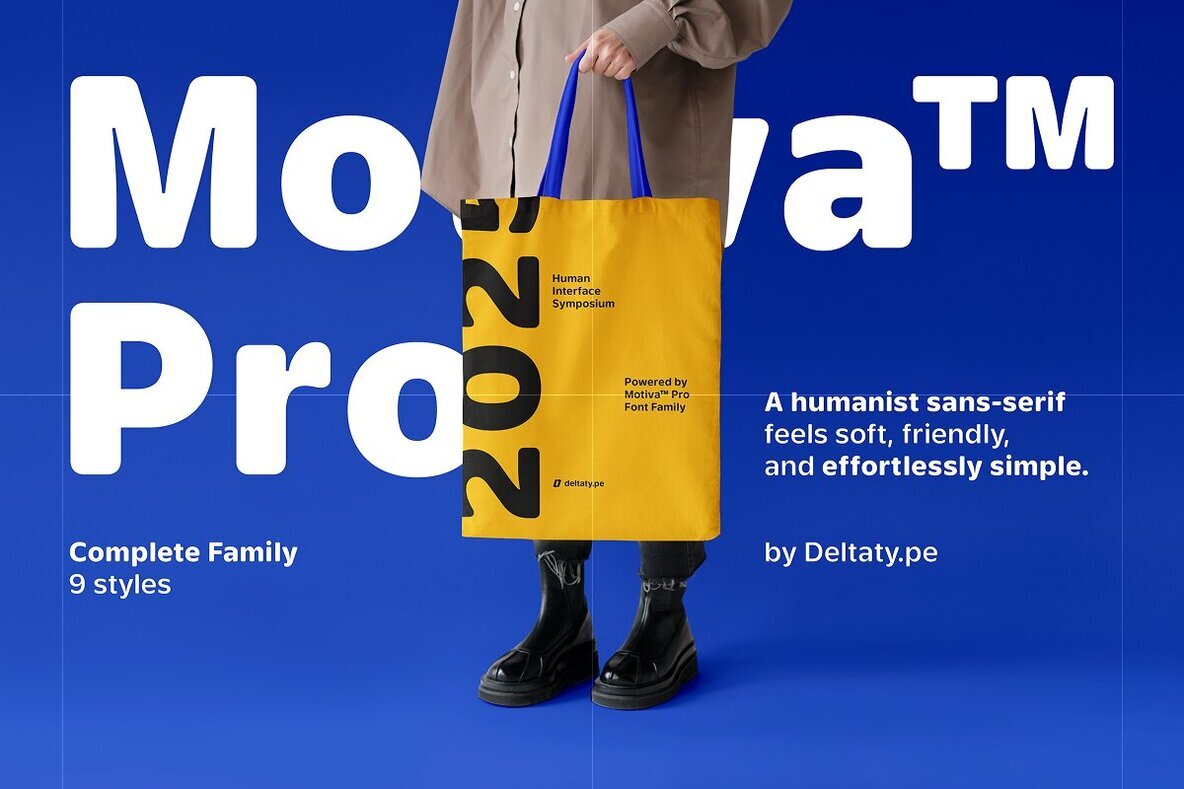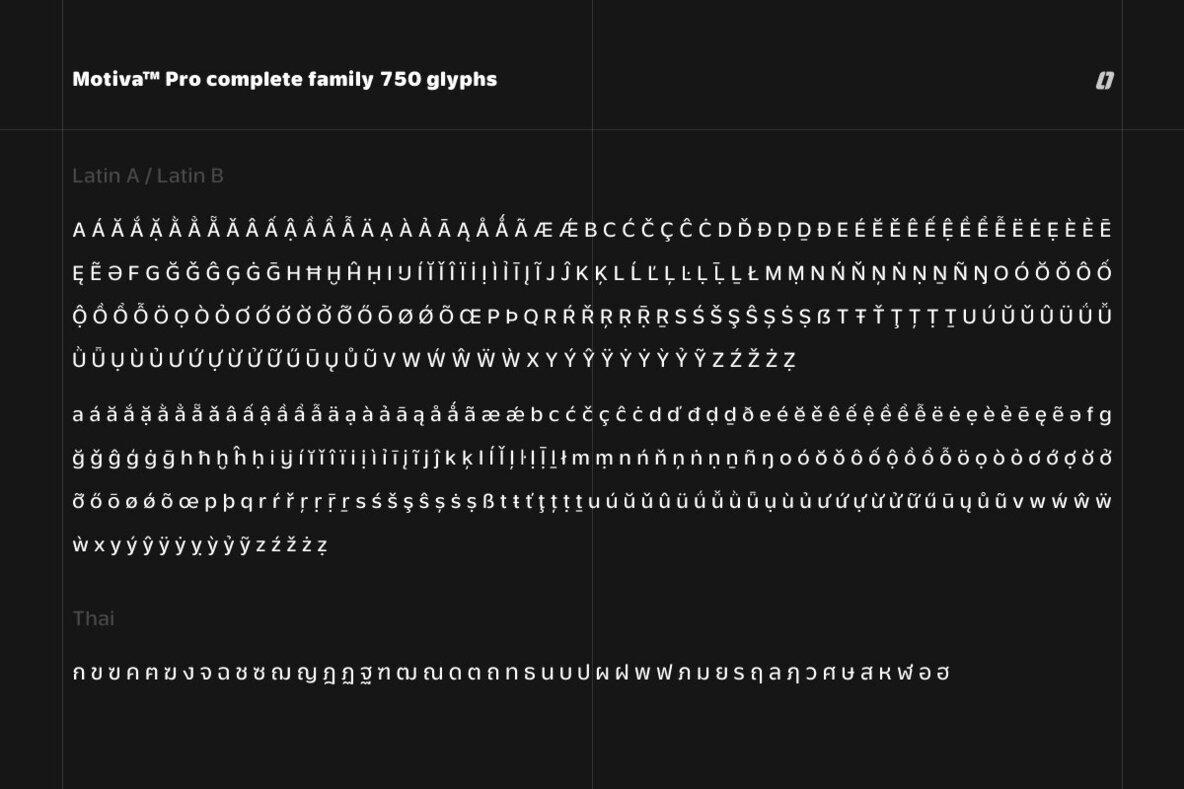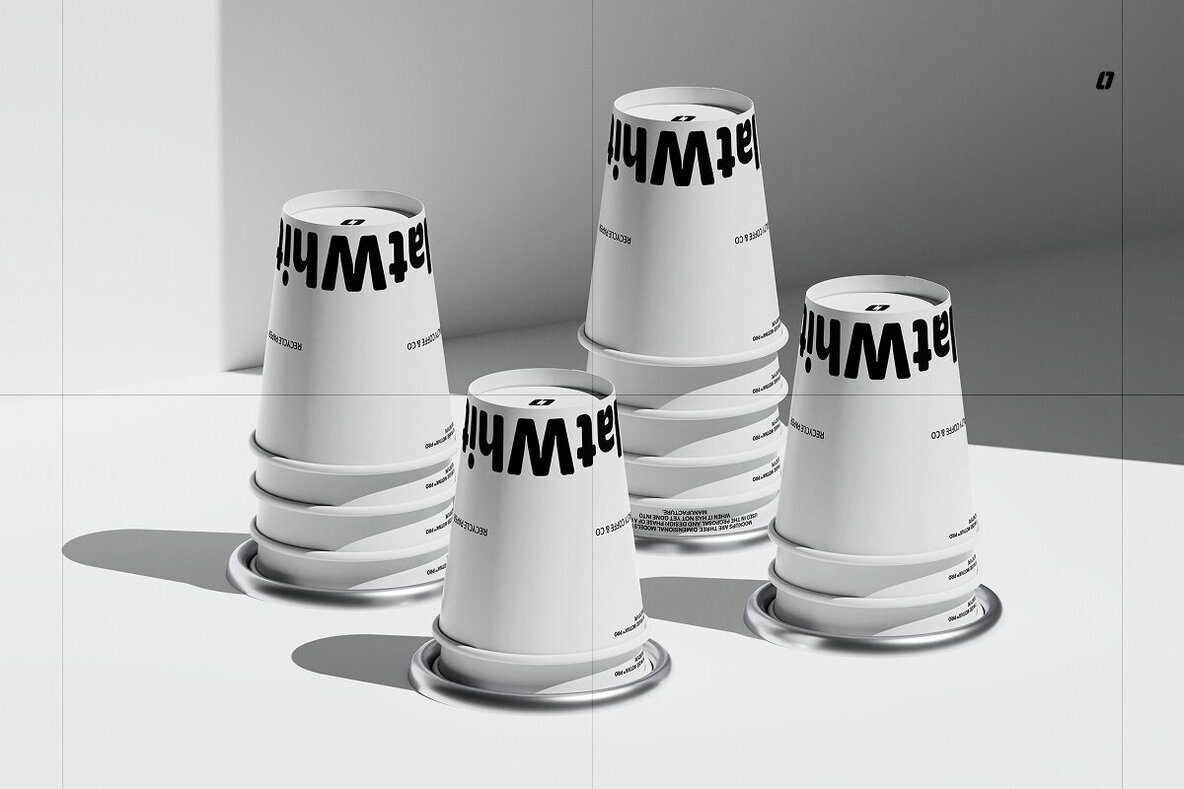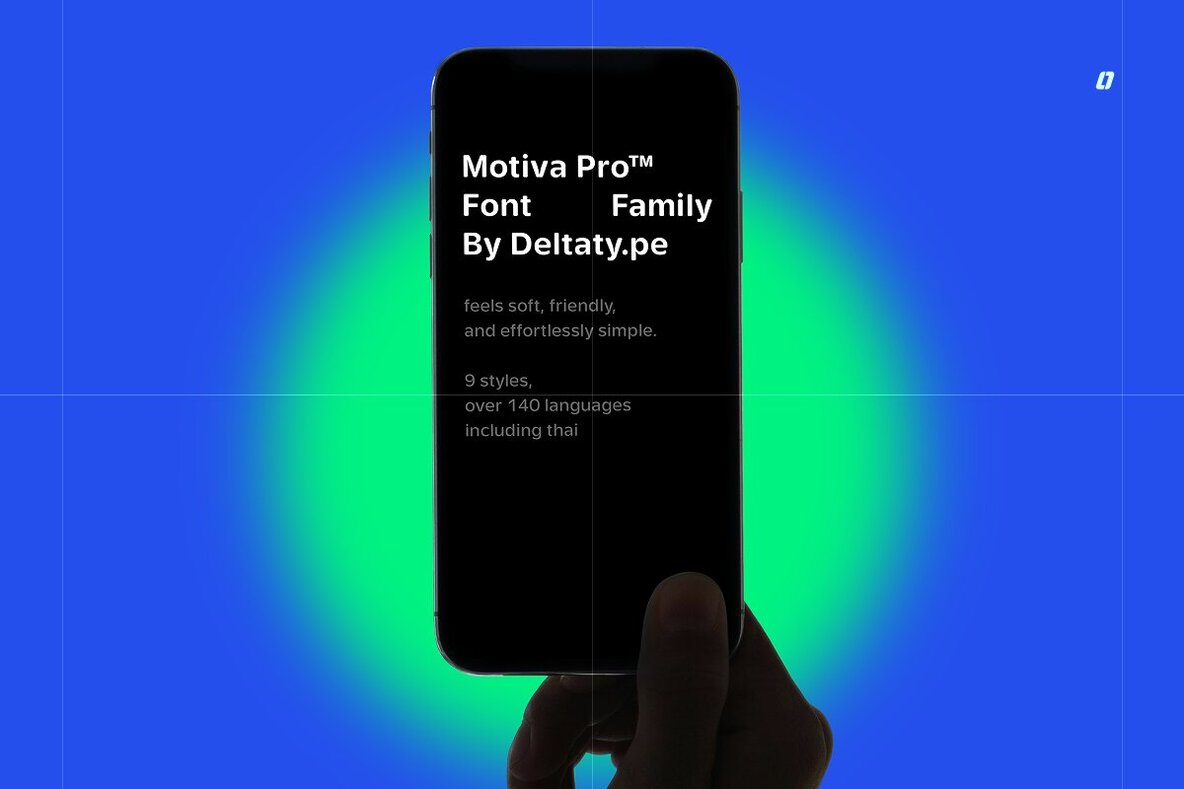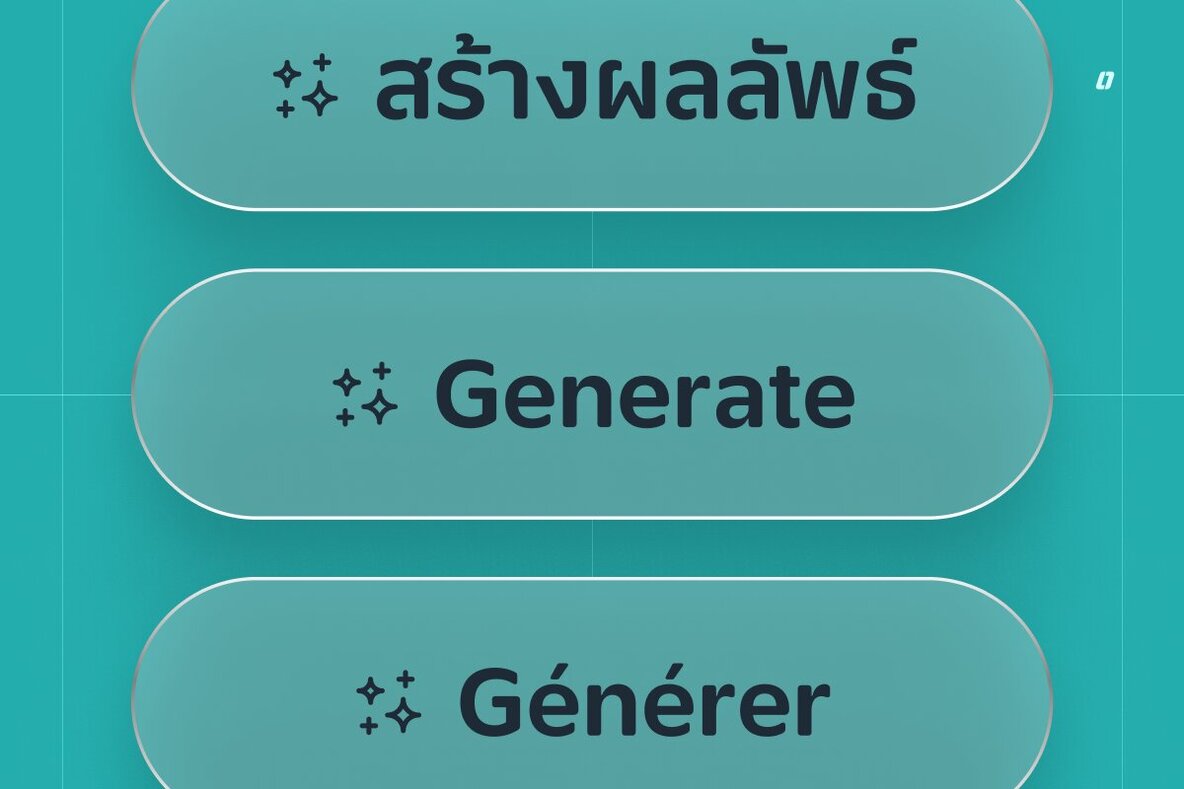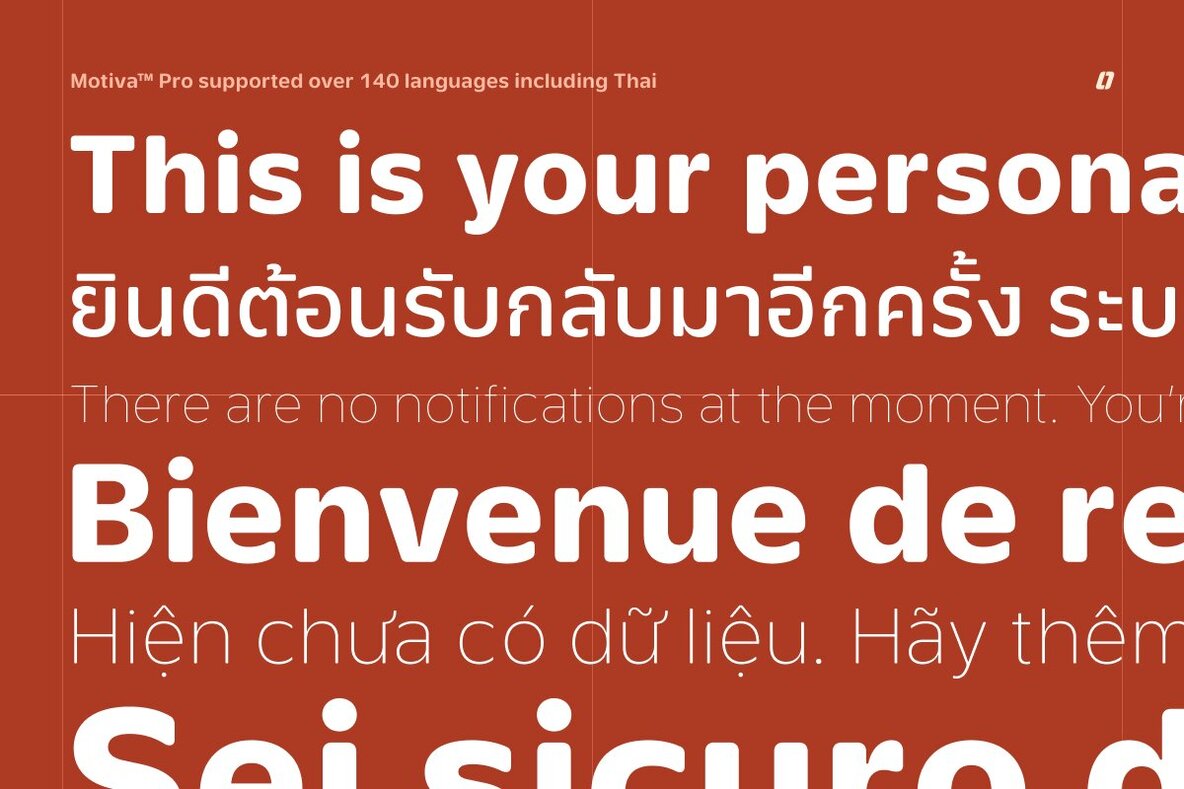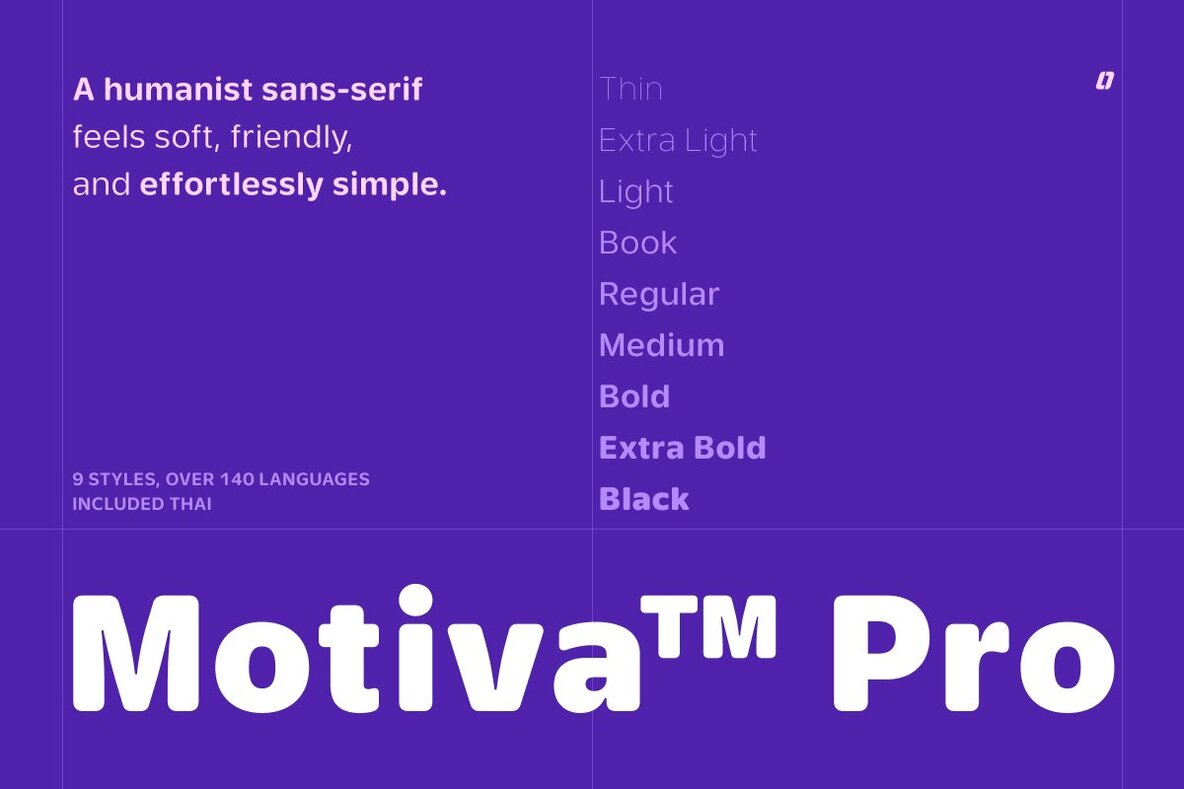
Motiva Pro Font
The Motiva Pro font is a testament to harmonious design, with its soft, humanist sans-serif qualities that effortlessly introduce a sense of warmth and simplicity. Meet Motiva Pro, a font that exudes a subtle confidence while infusing digital environments with warmth and clarity. Featuring gently rounded edges and well-balanced proportions, it presents an approachable and intelligently crafted aesthetic suitable for a broad spectrum of design applications.Motiva Pro: A Humanist Sans-Serif for Seamless Design
The Motiva Pro font is designed for those who seek both functional and emotional resonance in their digital storytelling.
Deltatype is a Thai type design studio known for its innovative approach to the Thai alphabet, crafting modern fonts that honor the language's unique visual character. Their work responds to the evolving role of typography in Thai design, where letterforms often serve as expressive design components, not just...